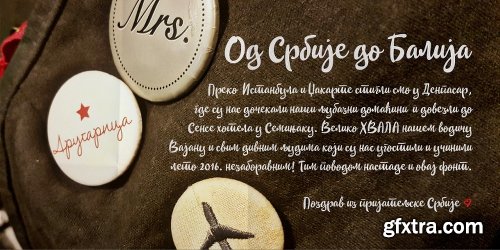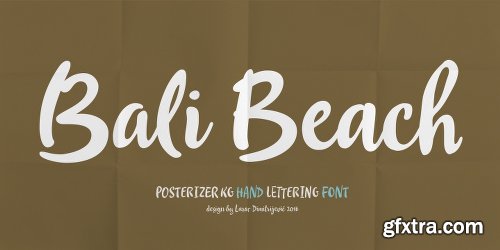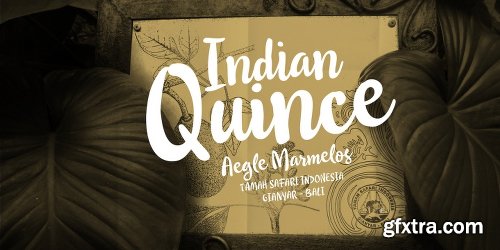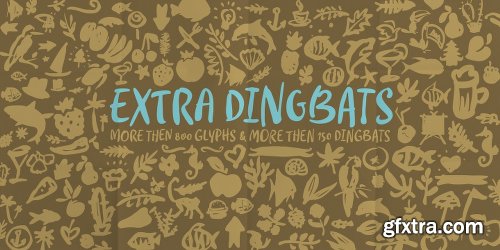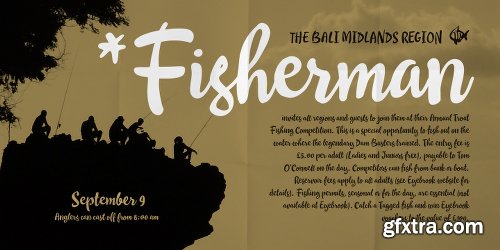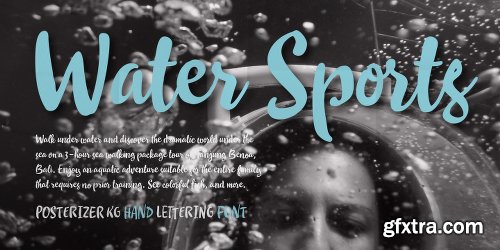
Bali Beach Font
Bali Beach is a script handwritten font with a casual, inky and modern look. You can use the alternates and ligatures to give your design a realistic, hand painted look.
If you find a single repeating glyph, you can change that by toggling between Stylistic Alternates. There are Cyrillic glyphs and more then 150 playful Dingbats with inky texture.
Bali Beach is the perfect choice for all natural and unconventional beautiful things.